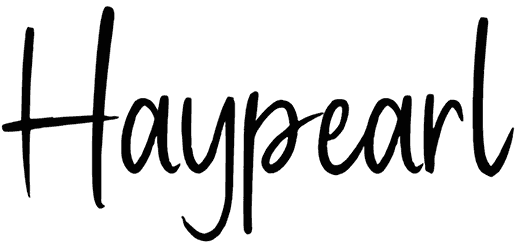
Haypearl Font
Haypearl can instantly improve the look of your marketing, impress your customers, or elevate your design from average to exceptional. This handwritten font sits between classy and dramatic and is the best option for expressing your most personal feelings in the form of friendly letters, invitations, and wedding cards.